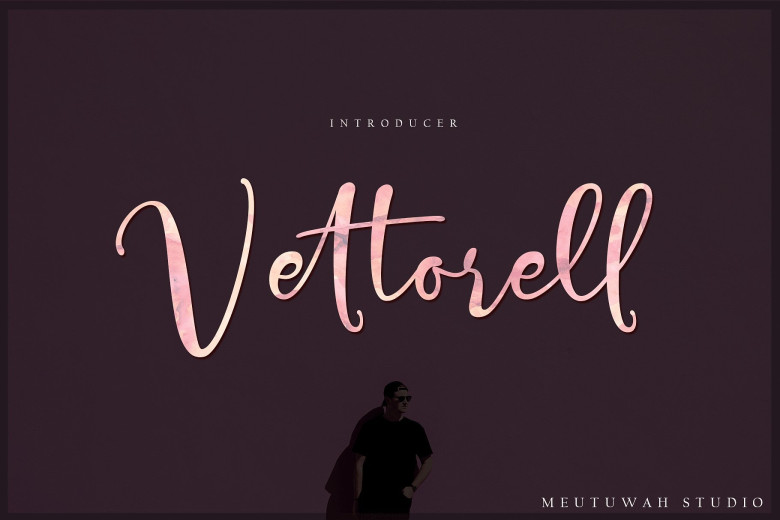
Vettorell Script Font
Hello Font Lovers! Introducing Vettorell Font. Vettorell Font Trio is another lovely modern Script font, which is combining the style of classic calligraphy with an modern style. combines from copperplate to contemporary typeface with a dancing baseline, modern and elegant touch. including alternates, and ligatures.